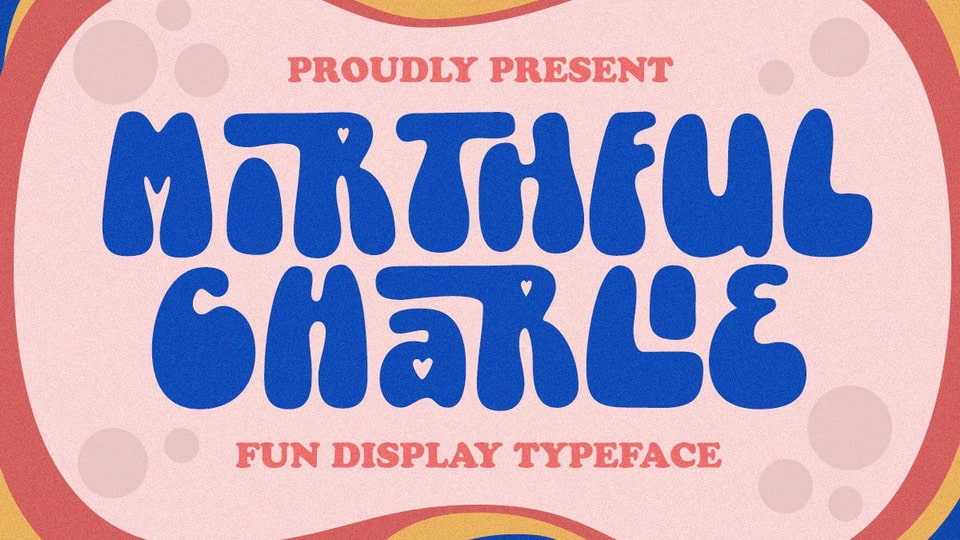
Download Mirthful Charlie font, a quirky bold typeface that is perfect for adding a touch of fun and whimsy to any design project. Mirthful Charlie font features a bubbly and cute form that exudes a sense of cheerfulness and playfulness.